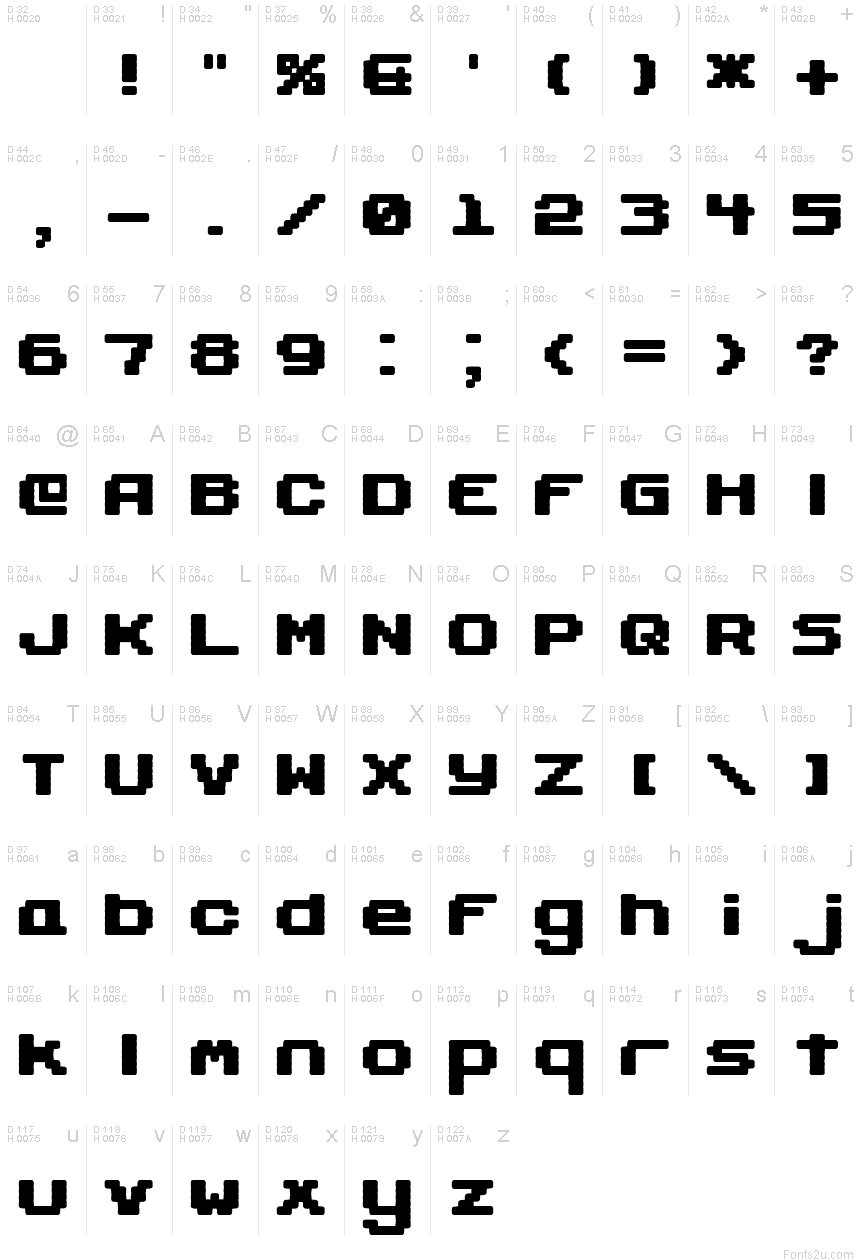
Gaposis Solid (BRK)
Gaposis Solid font by Ænigma Fonts is a free digital display typeface with the strange charm of a glitchy, over-inked printout. Its chunky, squared forms are wrapped in soft, wobbly edges that make every word feel like it’s vibrating on an old CRT screen. The result is bold, legible, and a little warped-in the best way.
Using Gaposis Solid, you can push titles for retro gaming projects, sci‑fi posters, underground event flyers, zines, tech YouTube thumbnails, and indie game logos. This free font thrives at large sizes where its rippling outlines can really buzz. Pair it with a clean geometric sans for small body text to keep layouts readable and let Gaposis Solid handle the noisy, high-impact moments.